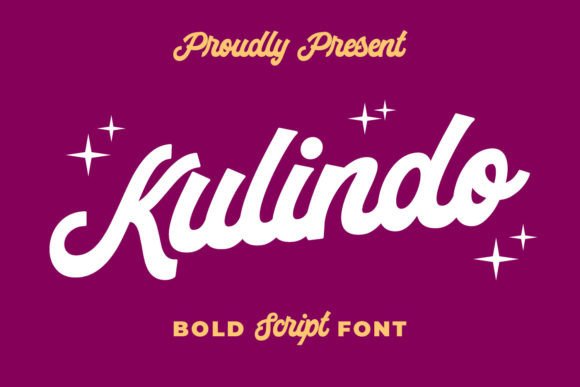
Introducing Kulindo Font, the bold and captivating script font that will elevate your creative projects to new heights! Designed by the talented Maulana Creative, this font is a visual masterpiece, meticulously crafted to deliver an unforgettable impact. With its playful and dynamic curves, Kulindo Font exudes a sense of exuberance and energy, making it the perfect choice for a wide range of applications.
Let your imagination soar as you explore the endless possibilities of Kulindo Font. Craft stunning logos that instantly grab attention, captivating movie or book titles that leave a lasting impression, and social media posts that ignite engagement. The possibilities are boundless, and your creativity knows no limits.
Kulindo Font's versatility shines through in its ability to effortlessly blend with various design styles. Whether you're working on a sleek and modern project or a whimsical and playful one, this font seamlessly adapts to your vision, adding a touch of elegance and sophistication.
* Its bold and playful style will make your projects stand out from the crowd.
* Its versatility makes it perfect for a wide range of applications, from logos to social media posts.
* Its easy-to-read design ensures that your message will be communicated clearly and effectively.
* Its high-quality design ensures that your projects will look professional and polished.